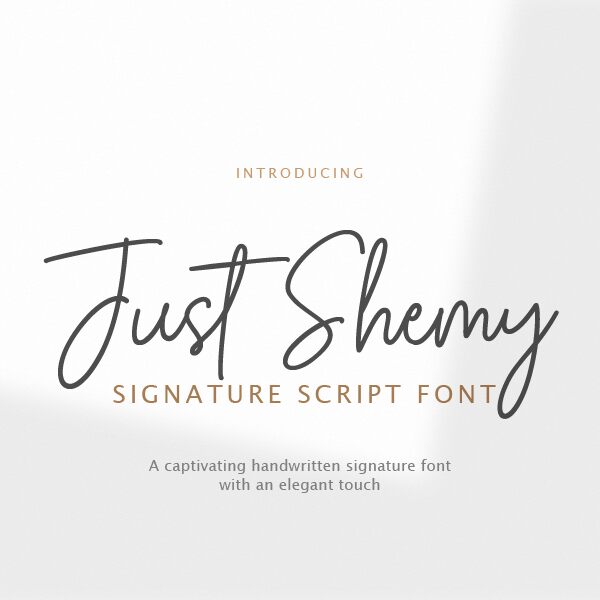
Just Shemy font by Typebae Foundry is a handwritten signature font designed to make your brand stand out. The light font features elegant, flowing letters that gracefully integrate into each other to create a sophisticated and modern script style. Its overall appearance gives off an artistic flair with charm and grace you haven’t yet experienced until now. You can think of Just Shemy as a next-generation contemporary calligraphy script which comes freely available for download.
Use Just Shemy in any imaginable project where particular attention to design details makes the difference among competitors. Focus your use on branding design by writing company names, logotypes, or brand slogans with this free signature font. Explore its potential elsewhere such as advertisements (both digital and printed), merchandise (t-shirts, bags), headline/subheadline typography for magazines or online blogs, business card stationery, posters in general (events announcements are ideal), greeting cards and wedding invitation ensembles (RSVPs and seating cards!) Work even more creatively on book cover titles or TV series name intros!
Just Shemy